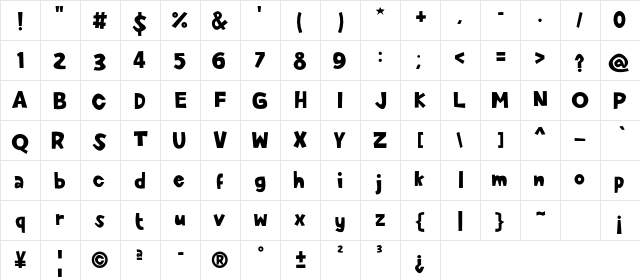
Cute Enung Cute Enung
Design Context for Cute Enung Typeface
Cute Enung offers clean, dependable letterforms without strong stylistic allegiance, making it a practical choice for designers who need flexibility.